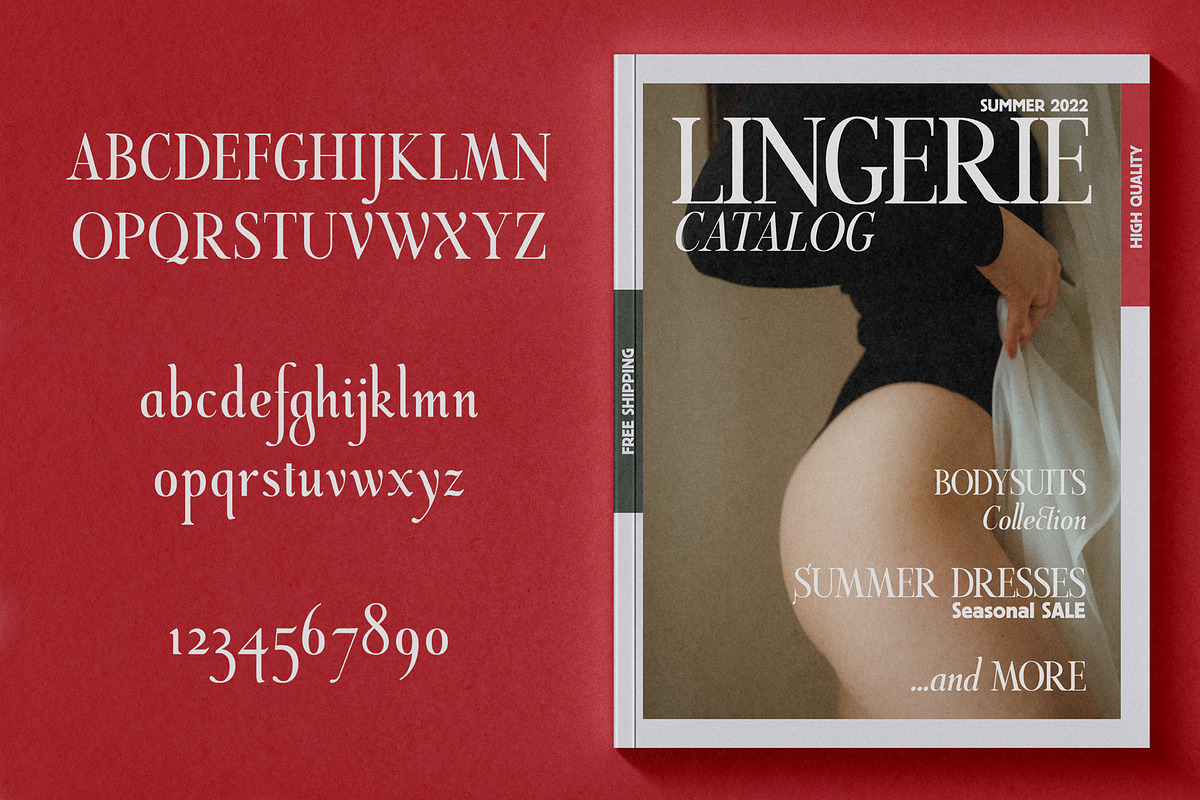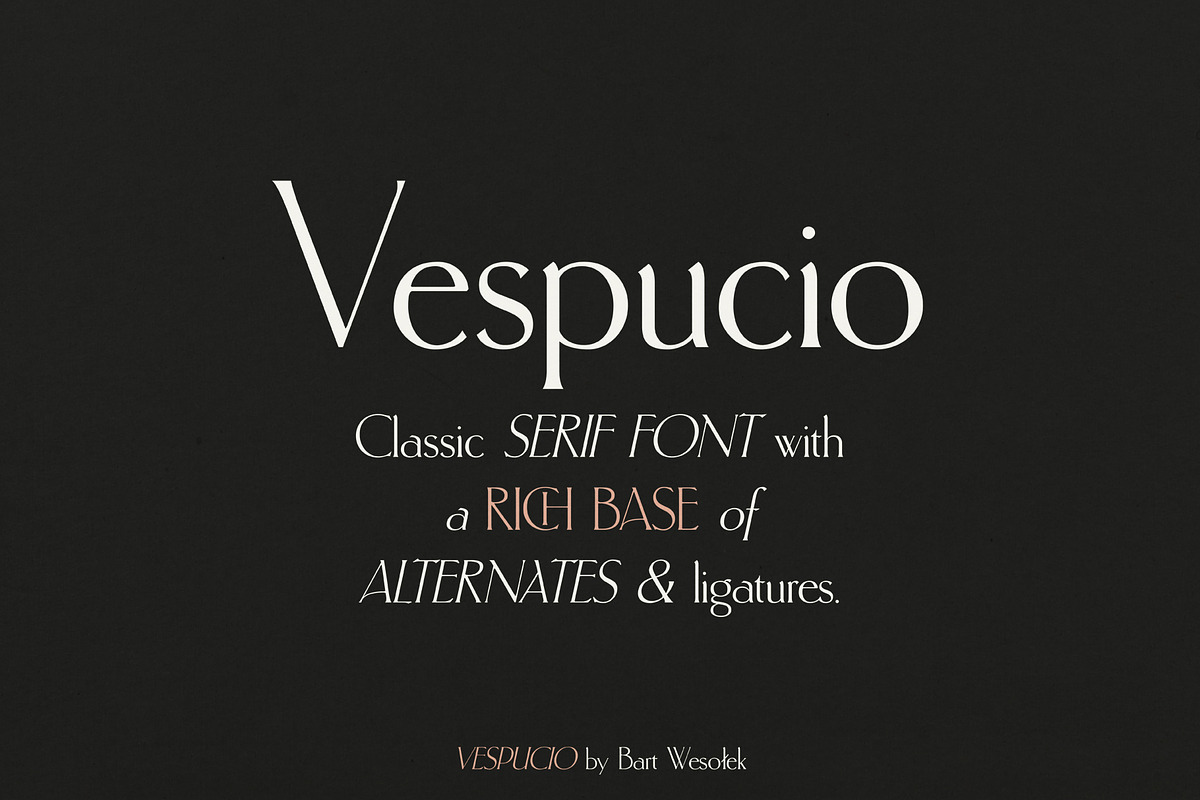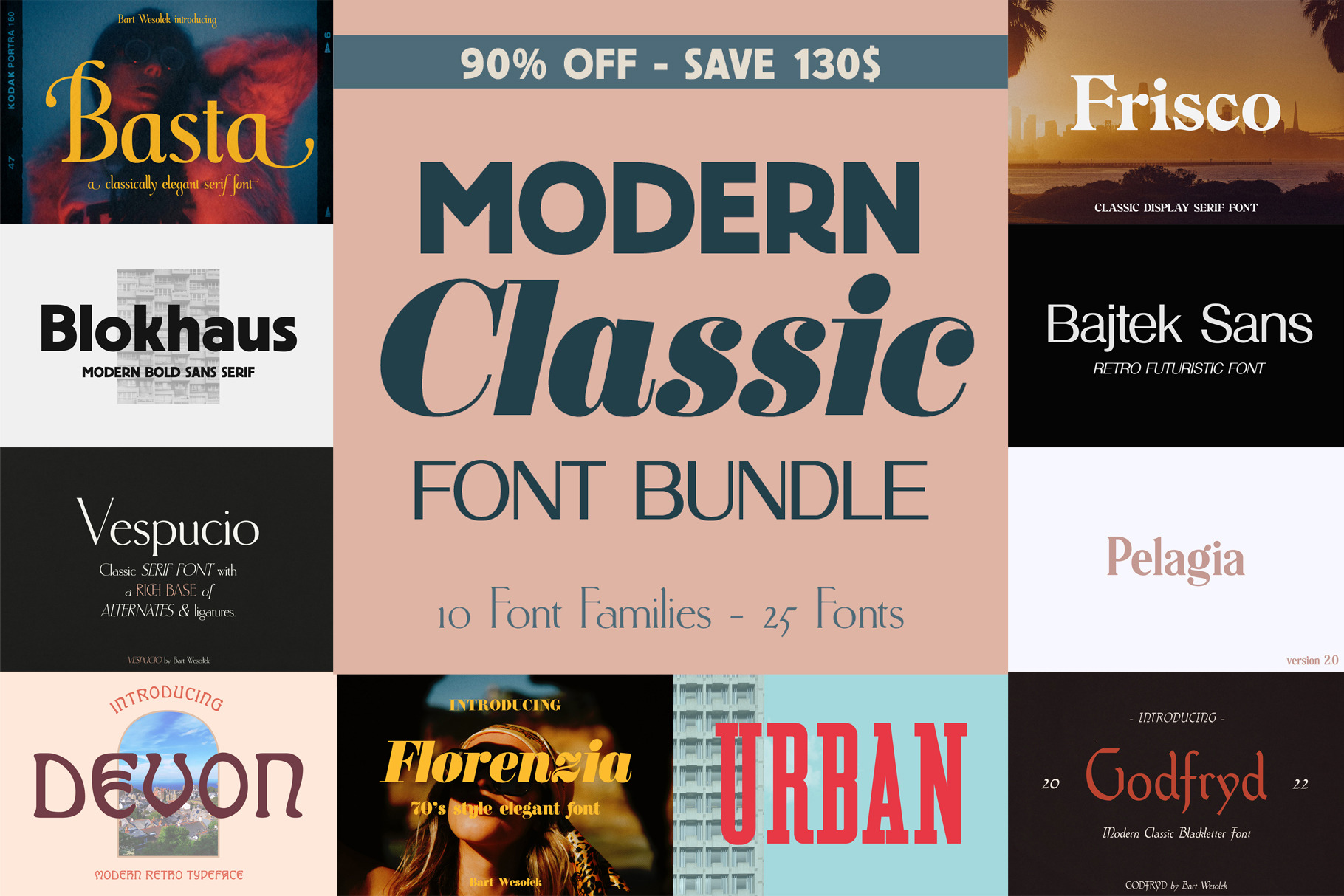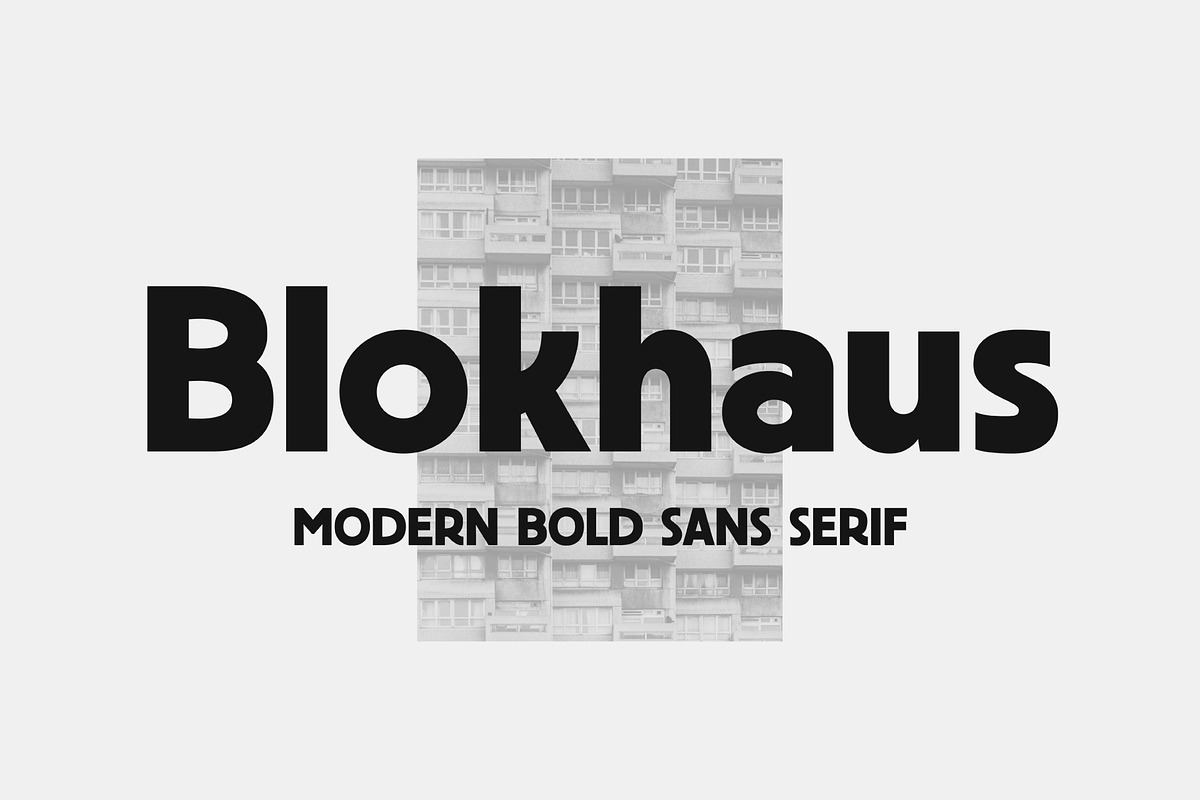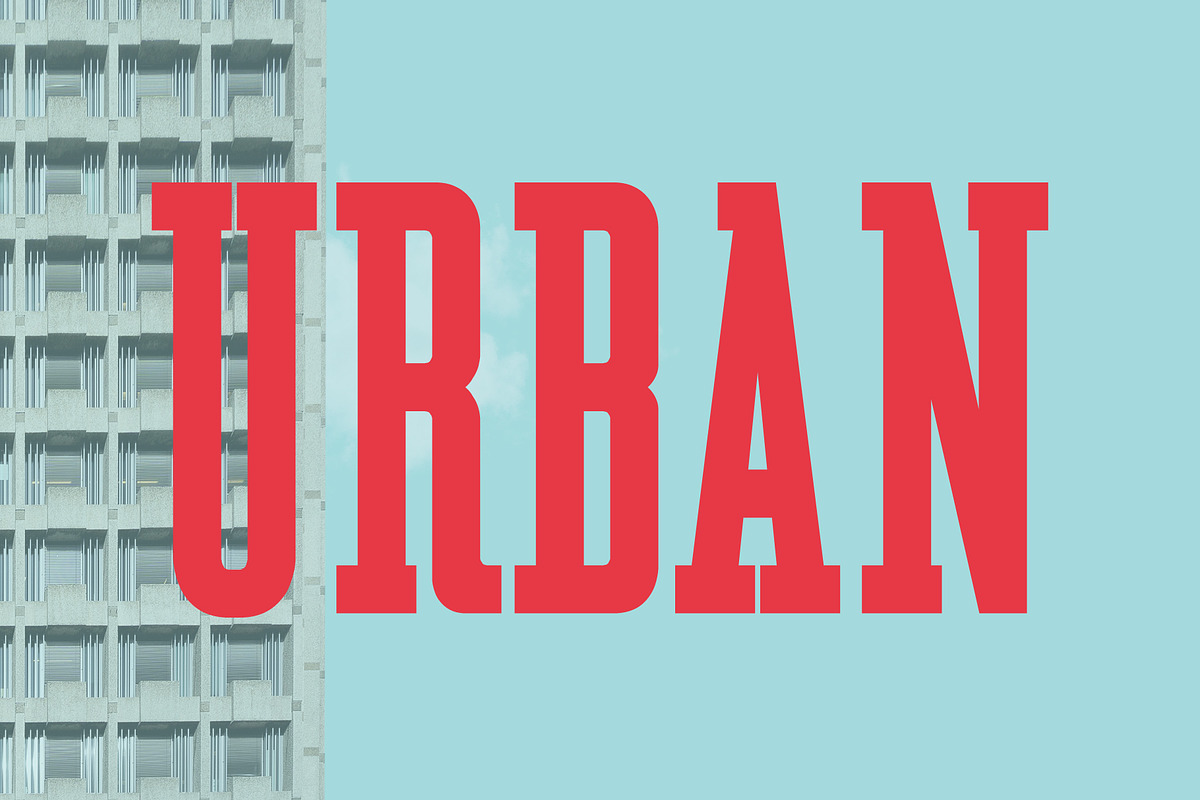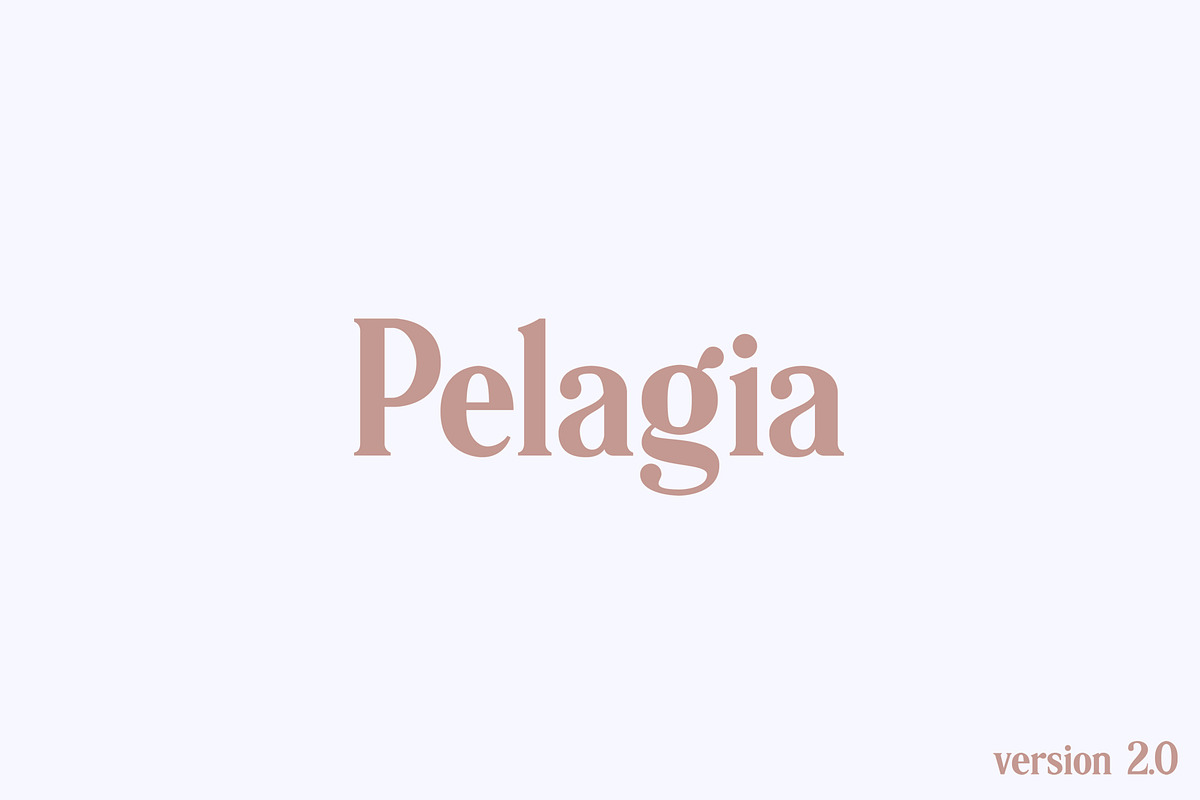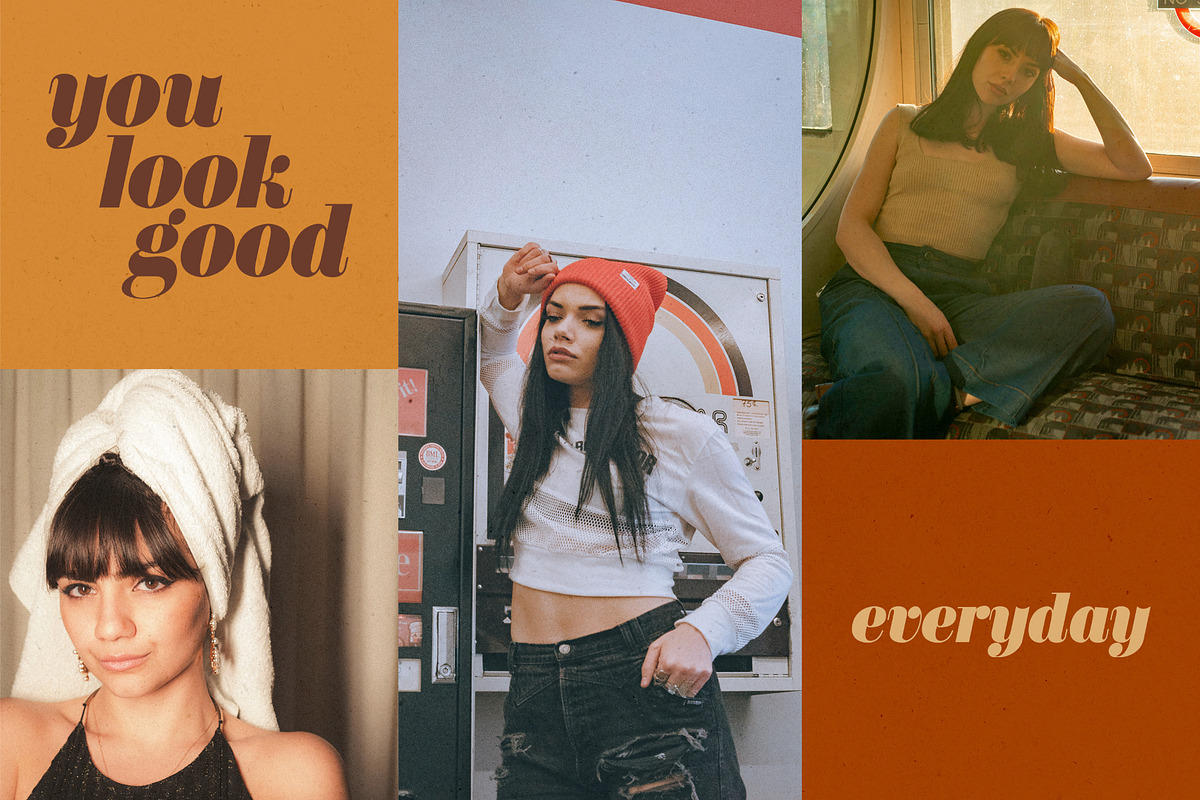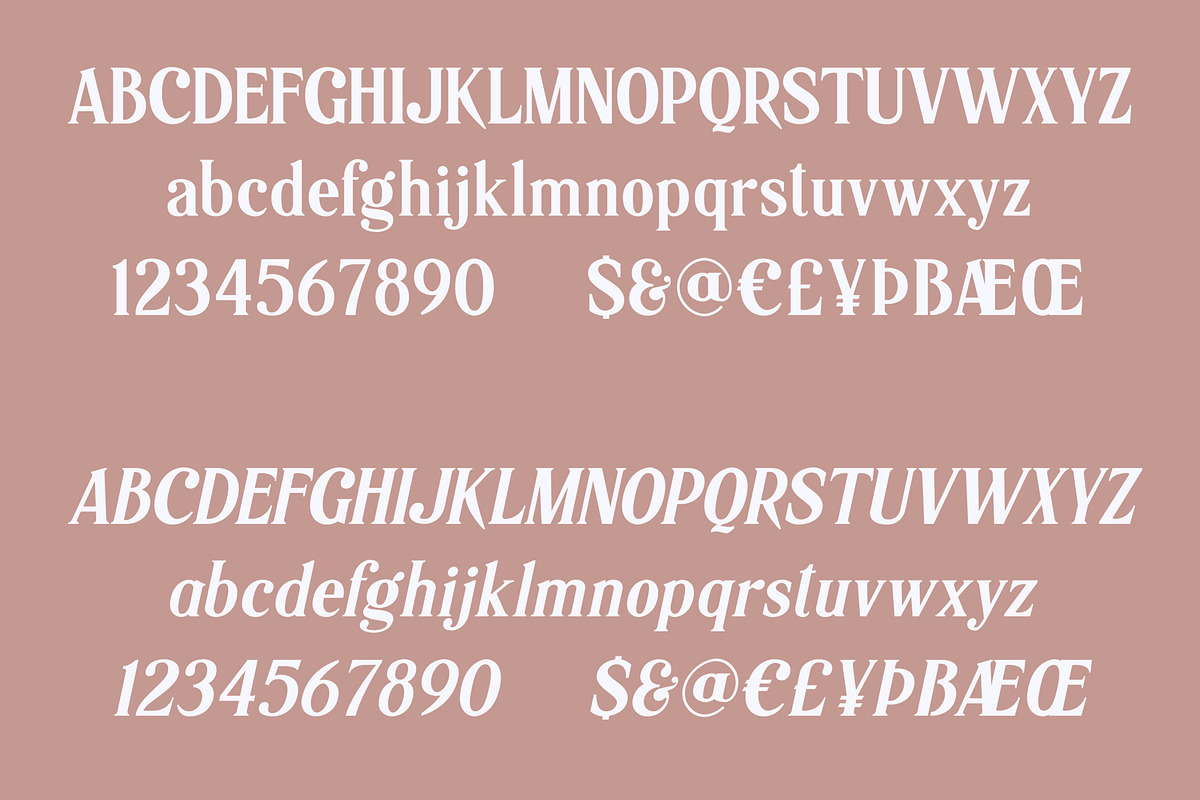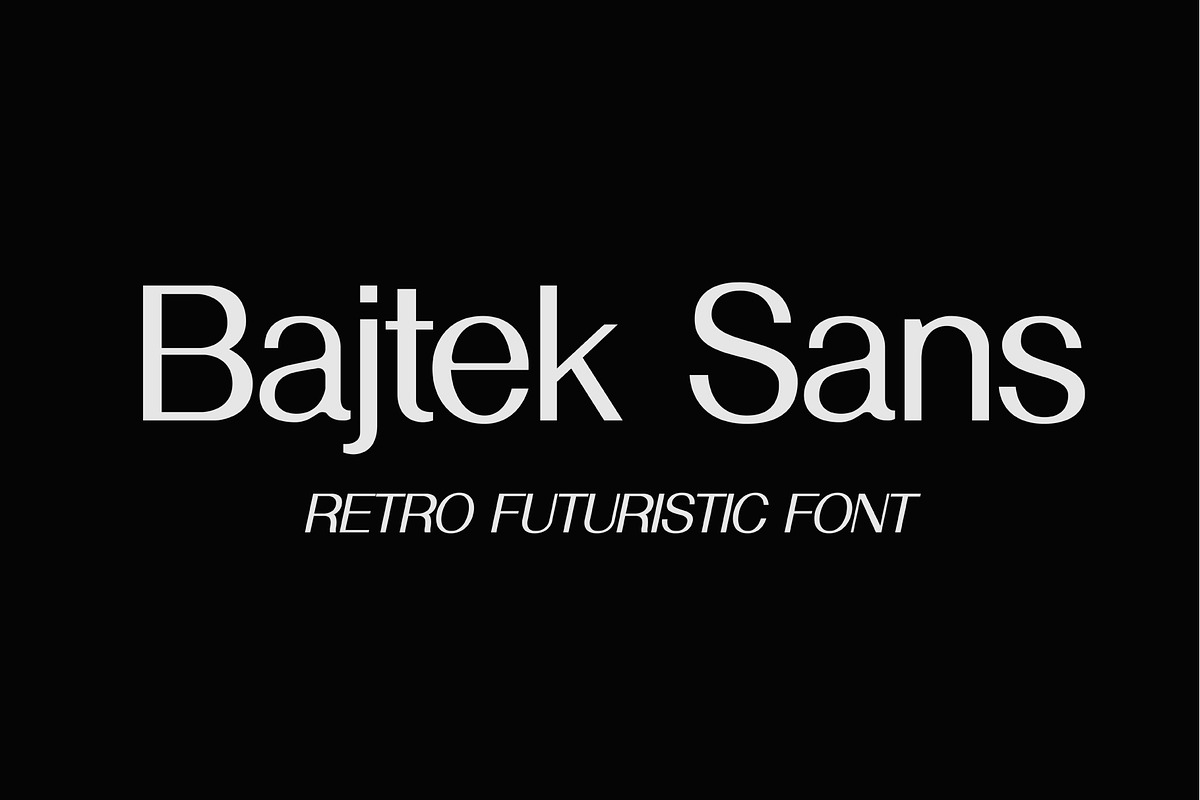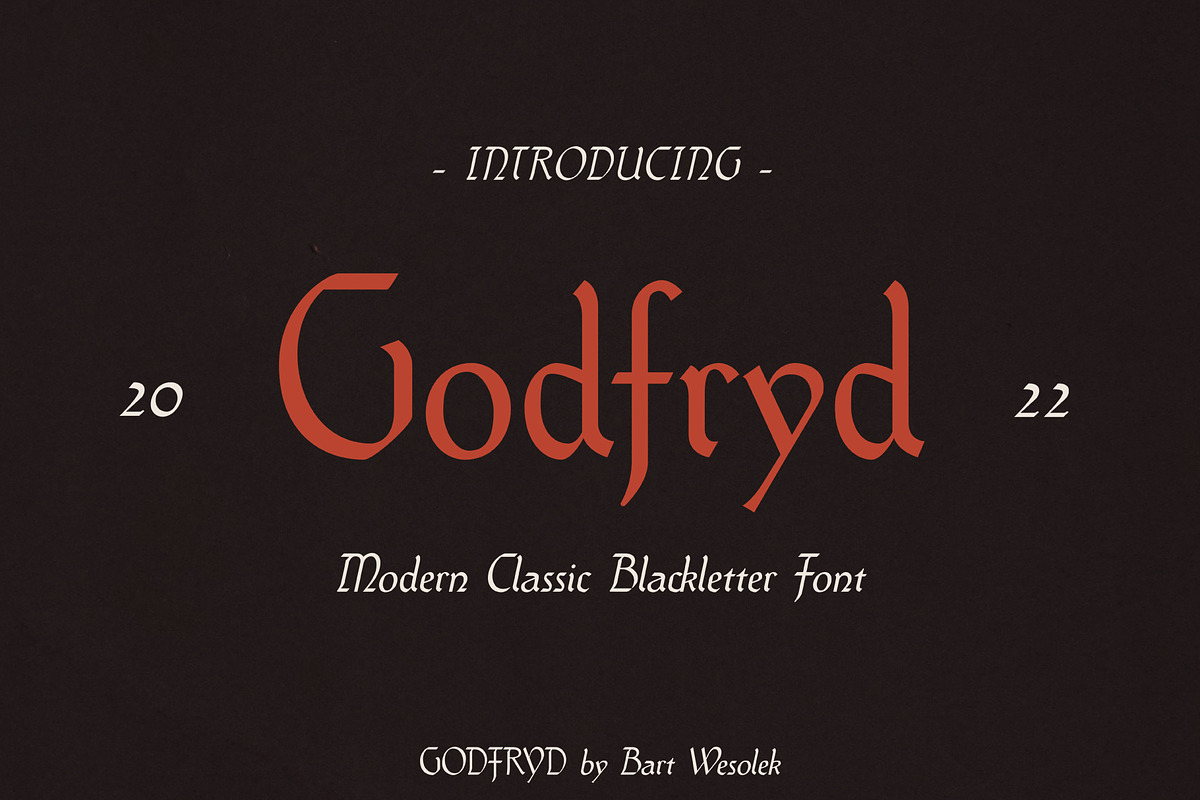
The Modern Classic Font Bundle is a versatile and timeless collection of serif and sans-serif typefaces — perfect for a wide range of design projects. This bundle includes multiple font families in different weights and styles, giving you flexibility for both elegant headings and clean body text. Whether you're working on branding, editorial layouts, packaging, or web design, these fonts deliver sophistication and legibility. Pair them with textured backgrounds like vintage paper or halftone overlays, combine with bold display fonts for contrast, or layer them in minimalist layouts. This bundle is ideal for designers and studios wanting a refined, cohesive typography toolkit.
Fonts inside:
- Blokhaus -
- Basta -
- Bajtek -
- Pelagia -
- Florenzia -
- Frisco -
- Urban -
- Vespucio -
- Godfryd -
- Devon -
In general: 10 Families - 25 Fonts!